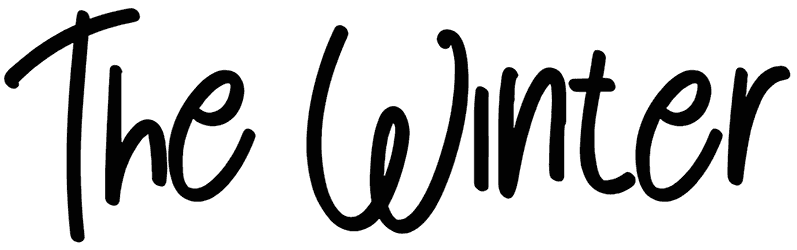
The Winter Font
Look what we brought you: a lovely, cute handwritten font that can bring booming feedback for any creative project. This script font presents a mixture of both lowercase and uppercase letters in two sizes to give you more flexibility and variety.
Some places where The Winter will stand out can be greeting cards, posters, stories, cartoons, and so on. Plus, it’s safe to say that nothing could elevate your lettering better than this artwork, slicing them in a natural, cozy manner.